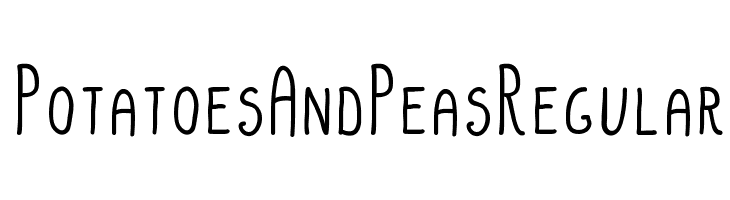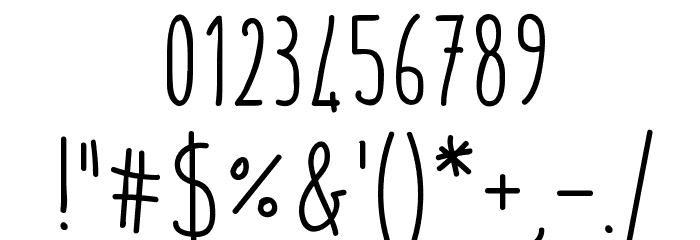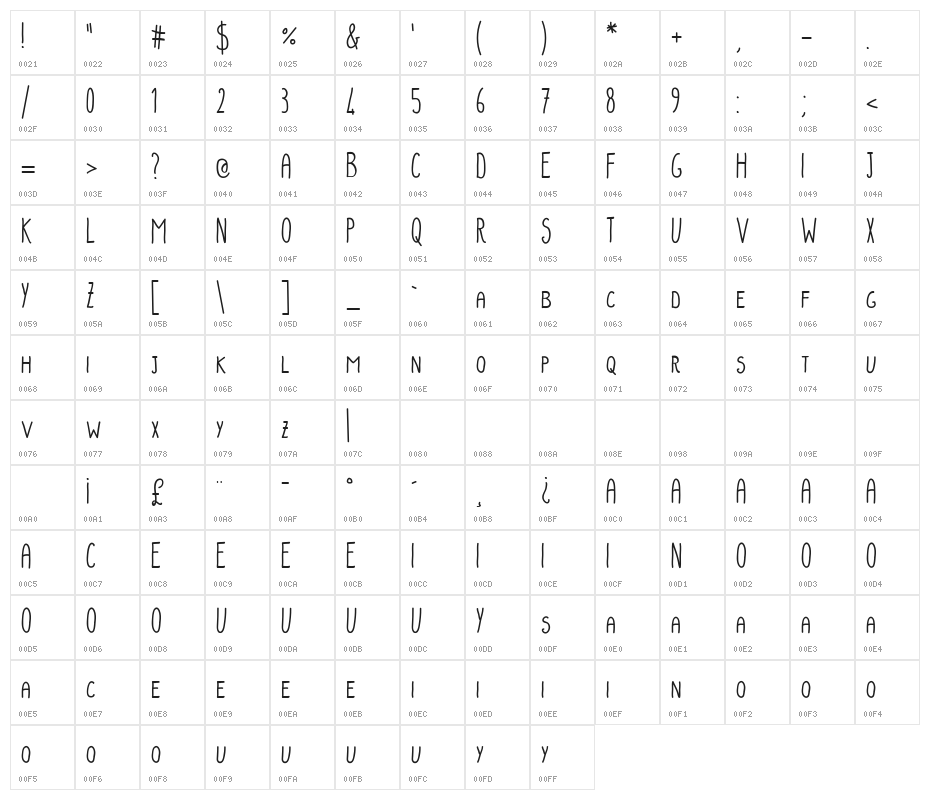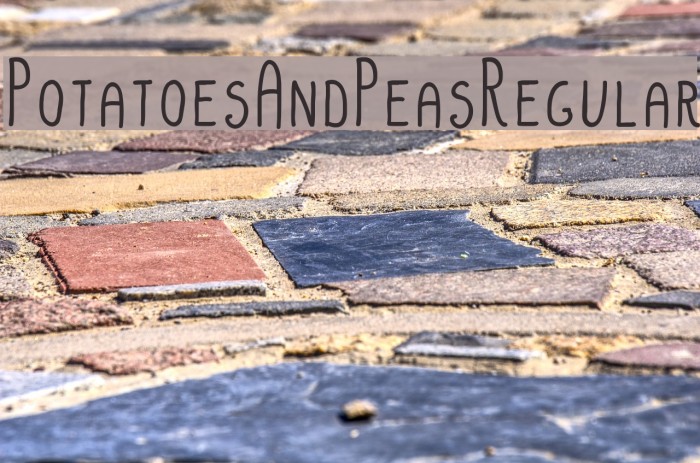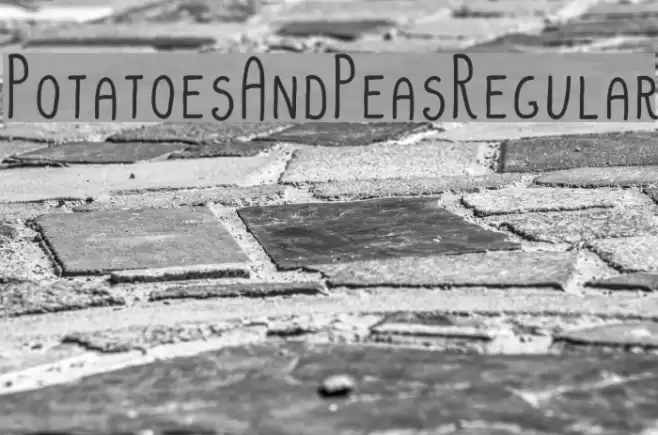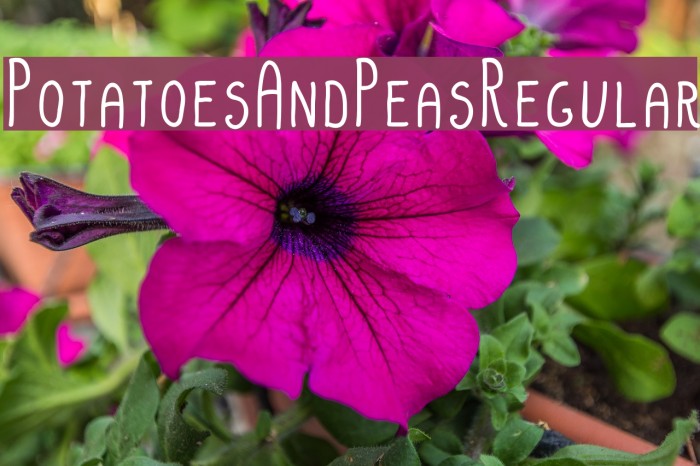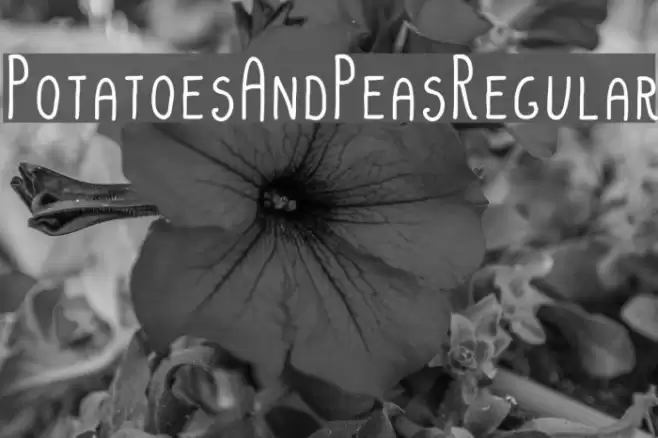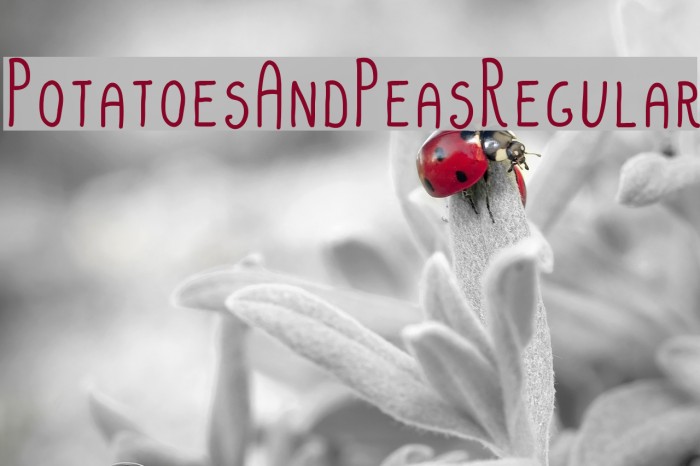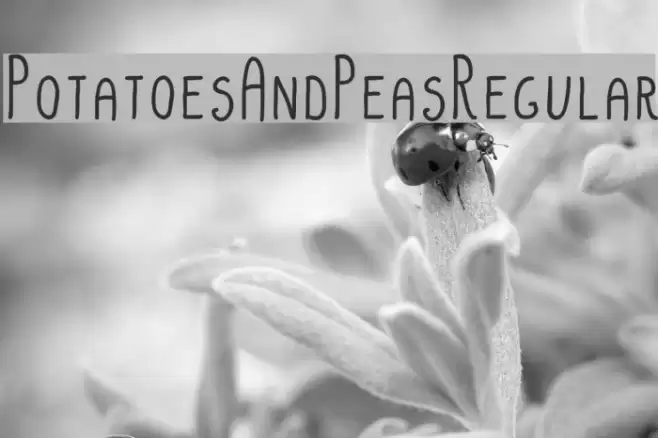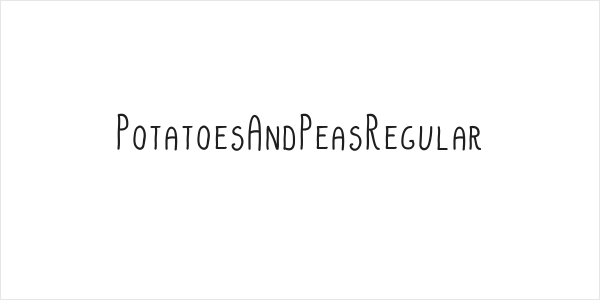
PotatoesAndPeasRegular Font
PotatoesAndPeasRegular Description
This font features a playful and informal handwritten style, characterized by its tall, narrow letters with a slight wobble that adds a touch of whimsy. The strokes are consistent in width, giving it a uniform appearance, while the rounded edges soften the overall look. The uppercase and lowercase letters maintain a cohesive style, with the numbers and special characters following suit. This font's casual and friendly demeanor makes it suitable for projects that aim to convey a sense of approachability and creativity.
| Proposed Projects | Ideal for children's books, greeting cards, playful branding, and casual invitations. |